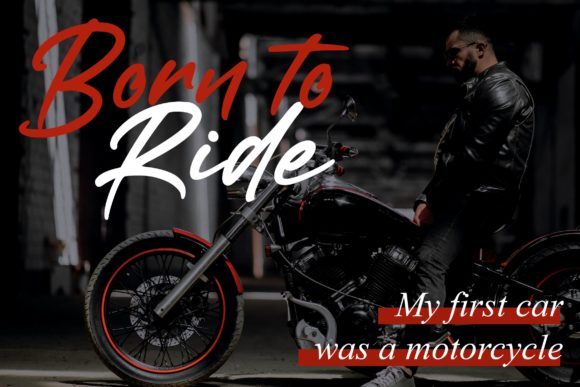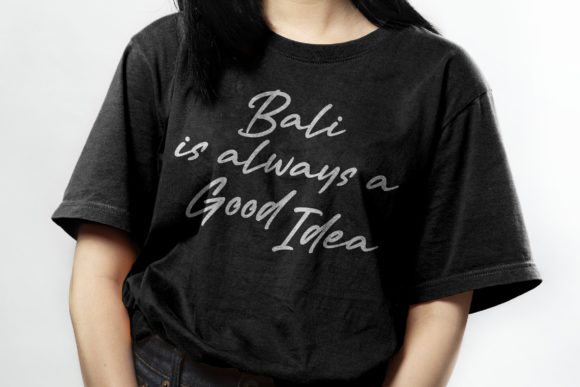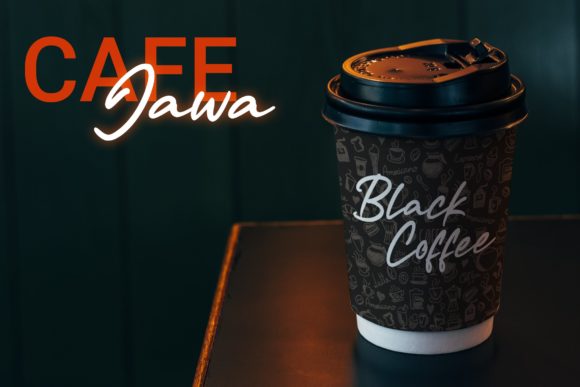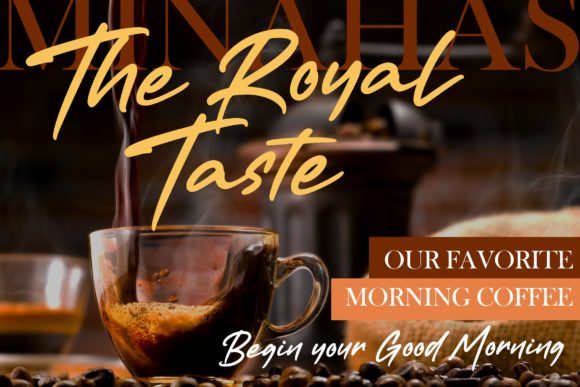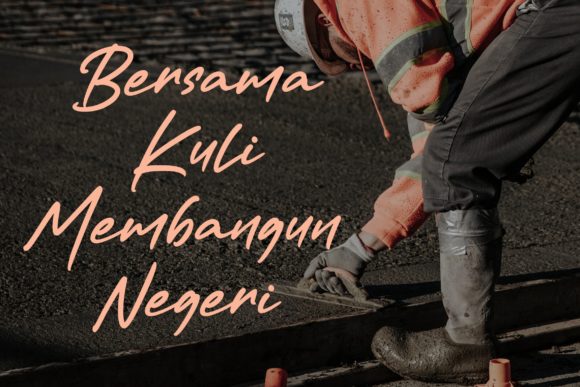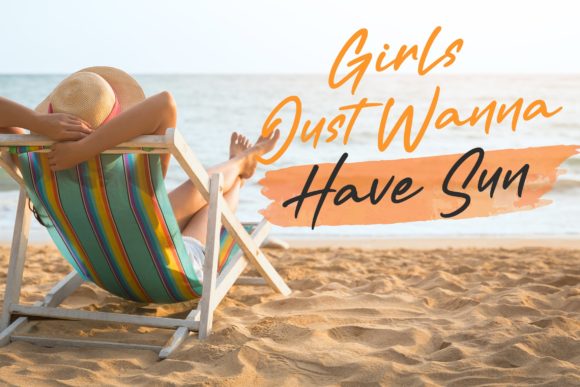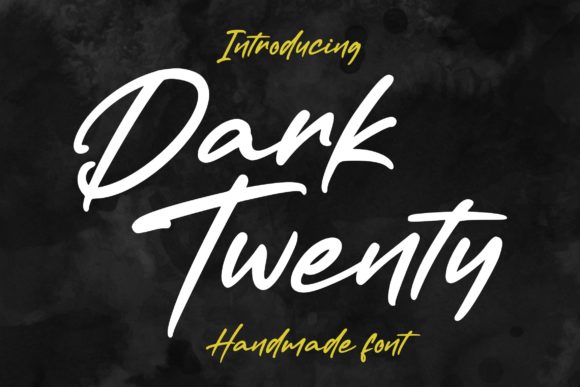
Introducing Dark Twenty Font: The Perfect Handwritten Font for Crafting Projects
Are you a designer or crafter looking for a unique and personalized touch for your projects? Look no further than the Dark Twenty font, a casual and modern handwritten font that’s perfect for adding a touch of elegance and sophistication to any crafting project. In this article, we’ll explore the features and benefits of the Dark Twenty font, and show you how to use it to take your crafting projects to the next level.
What is Dark Twenty Font?
Dark Twenty is a casual and modern handwritten font that’s designed to add a personal touch to any crafting project. With its smooth and flowing lines, this font is perfect for creating beautiful and eye-catching designs that stand out from the crowd. Whether you’re working on a DIY project, a scrapbooking page, or a handmade card, the Dark Twenty font is the perfect choice for adding a touch of personality and style.
Features of Dark Twenty Font
The Dark Twenty font has a number of features that make it perfect for crafting projects. Some of its key features include:
- Handwritten style: The Dark Twenty font has a beautiful, handwritten style that’s perfect for adding a personal touch to any project.
- Modern and casual: This font is modern and casual, making it perfect for a wide range of crafting projects, from DIY to scrapbooking.
- Smooth and flowing lines: The Dark Twenty font has smooth and flowing lines that make it easy to read and beautiful to look at.
- Versatile: This font is versatile and can be used for a wide range of projects, from handmade cards to DIY signs.
Benefits of Using Dark Twenty Font
There are many benefits to using the Dark Twenty font for your crafting projects. Some of the benefits include:
- Personalized look: The Dark Twenty font adds a personalized look to any project, making it perfect for special occasions and gifts.
- Elegant and sophisticated: This font has an elegant and sophisticated style that’s perfect for creating beautiful and eye-catching designs.
Tips for Using Dark Twenty Font
Here are some tips for using the Dark Twenty font:
- Use it for headings: The Dark Twenty font is perfect for headings and titles, as it adds a touch of elegance and sophistication to any design.
- Combine it with other fonts: You can combine the Dark Twenty font with other fonts to create a unique and eye-catching design.
| Font Name | Dark Twenty Font |
The Dark Twenty font is a beautiful and versatile handwritten font that’s perfect for adding a personal touch to any crafting project. With its smooth and flowing lines, modern and casual style, and elegant and sophisticated look, this font is perfect for designers and crafters who want to create beautiful and eye-catching designs. Whether you’re working on a DIY project, a scrapbooking page, or a handmade card, the Dark Twenty font is the perfect choice. So why not give it a try and see the difference it can make to your crafting projects?